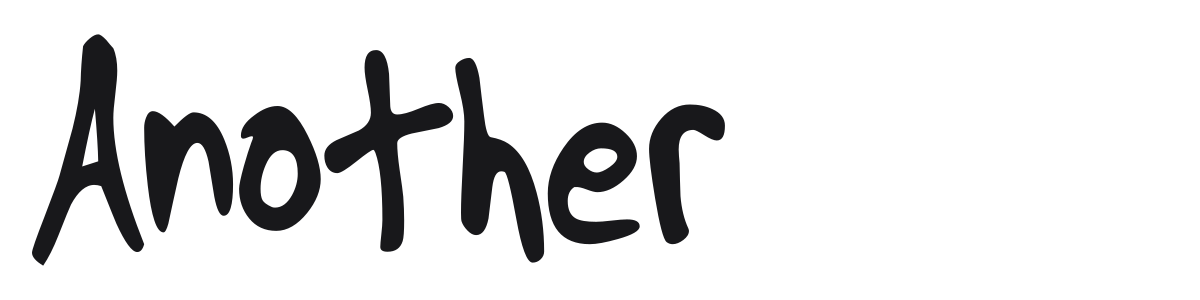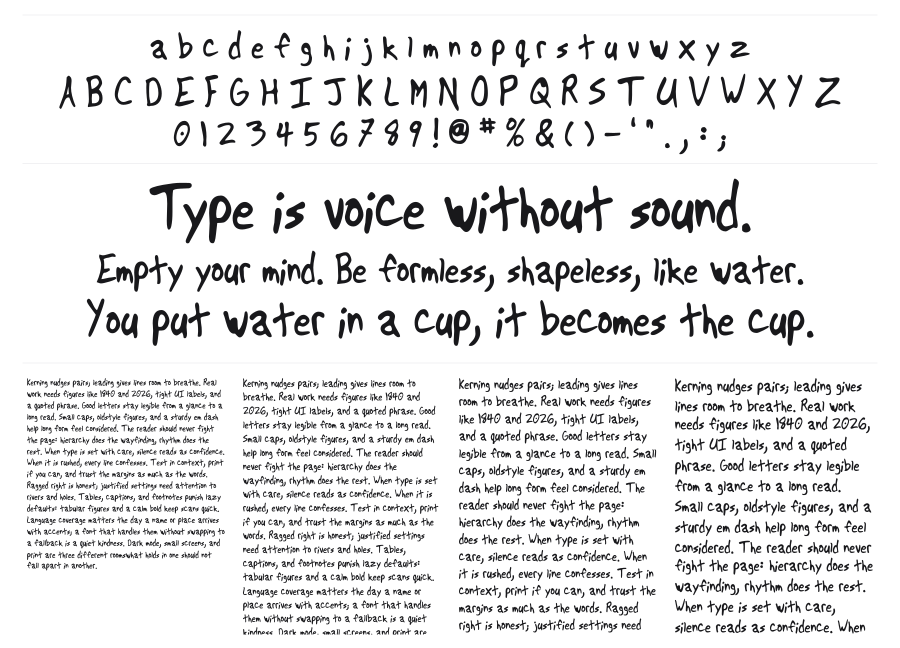
Another
Another is a bold casual handwriting font drawn directly with a Sharpie by Ben McGehee of UnAuthorized Type. The thick, rounded strokes and subtle irregularities in angle and weight give it an honest, unforced quality that distinguishes it from smoother digital scripts. It carries genuine marker-on-paper character without trying too hard.